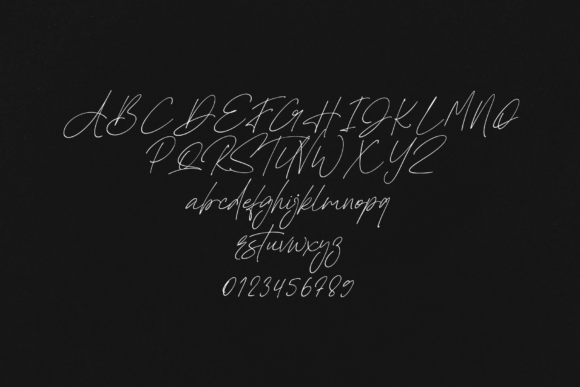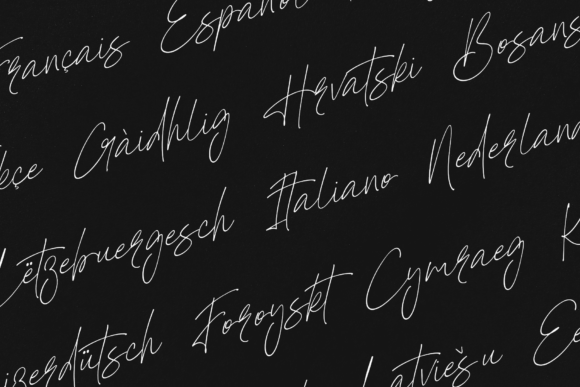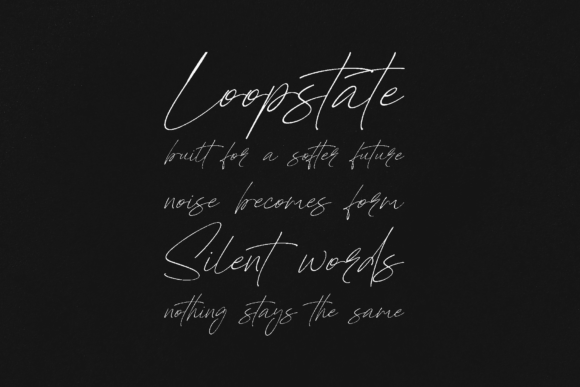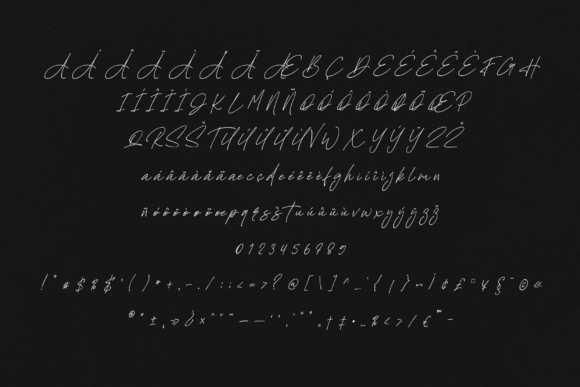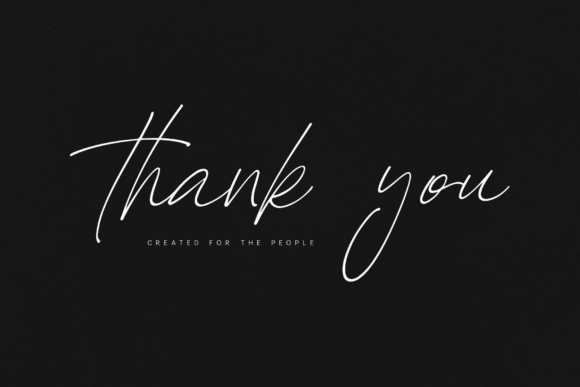
Introduction to Polymath Font
As designers, we’ve all been there – staring at a blank canvas, searching for that elusive spark to bring our creative project to life. For me, it was a lazy Sunday afternoon, surrounded by scribbled notes and half-finished ideas. That’s when I stumbled upon the Polymath Font – a game-changer in the world of typography. Its airy, monolinear script seemed to dance across the page, evoking the confident stroke of a professional’s signature.
The Polymath Font is more than just a design resource; it’s a key to unlocking a sophisticated, human touch in your digital and print layouts. With its minimalist construction and relaxed rhythm, this font is perfect for adding a touch of elegance to personal branding, lifestyle photography watermarks, and boutique logos.
Key Features of Polymath Font
- Unique blend of modern and vintage elements, ideal for creative projects that require a touch of sophistication and elegance.
- Includes a comprehensive character set, featuring over 200 glyphs, making it suitable for a wide range of creative projects and languages.
Honest Review: Polymath Font
As a designer, I’m always on the lookout for high-quality fonts that can elevate my creative projects. Recently, I had the chance to work with the Polymath Font, and I must say, it’s been a game-changer for me.
- ✨ Elegant and modern design that adds a touch of sophistication to any project.
- ✨ Highly legible, even at small font sizes, making it perfect for body text or headlines.
- ⚠️ Limited character set, which may not be ideal for projects requiring extensive typographic support.
Common Use Cases for the Polymath Font
The Polymath Font is perfect for a variety of design projects, including:
- Infographics and data visualizations